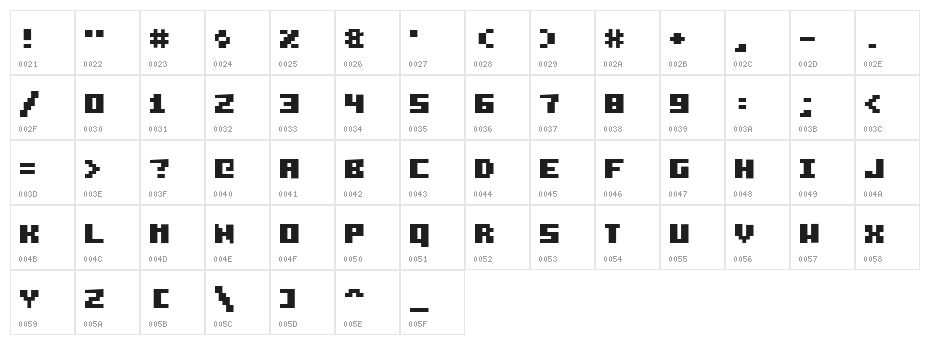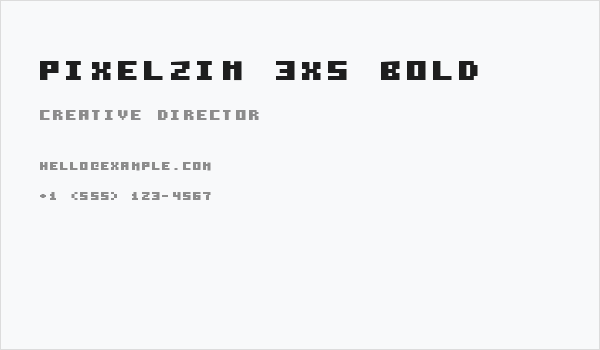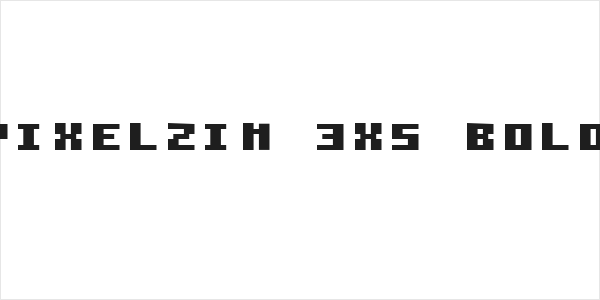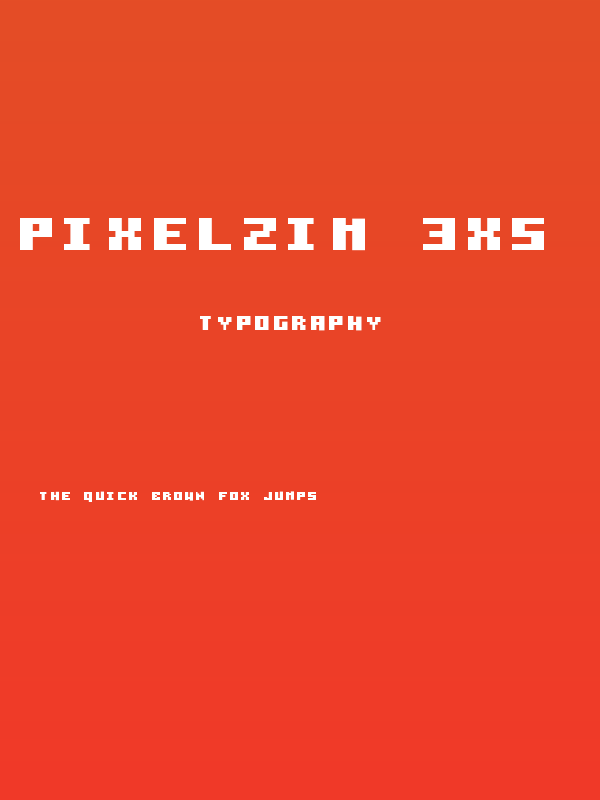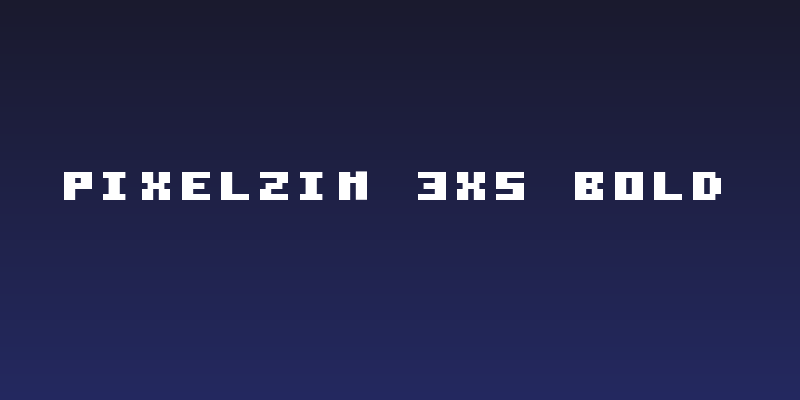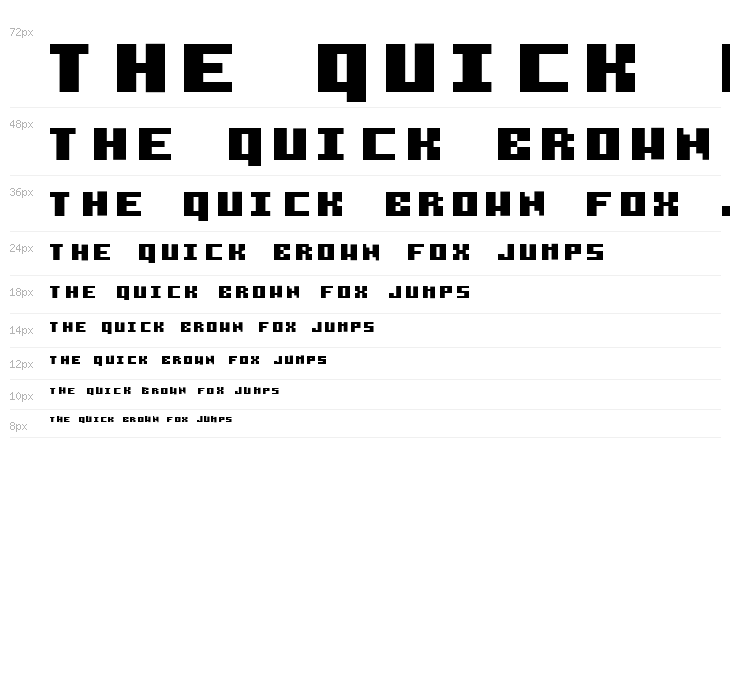
Pixelzim 3x5 Bold Font
Pixelzim 3x5 Bold Description
This font features a bold, pixelated design reminiscent of early digital displays and retro video games. Each character is constructed with a grid-like precision, giving it a blocky and geometric appearance. The uppercase and lowercase letters maintain a consistent height, contributing to a uniform look. The numerals and special characters follow the same pixelated style, ensuring cohesive visual harmony across all elements. Its simplicity and clarity make it highly legible, even at smaller sizes, while the boldness adds a striking visual impact.
| Overall Style | Retro, Digital |
| Use Case | Headlines, Logos, Digital Displays |
| Proposed Projects | Ideal for retro-themed designs, video game graphics, digital art, and tech-related branding. |